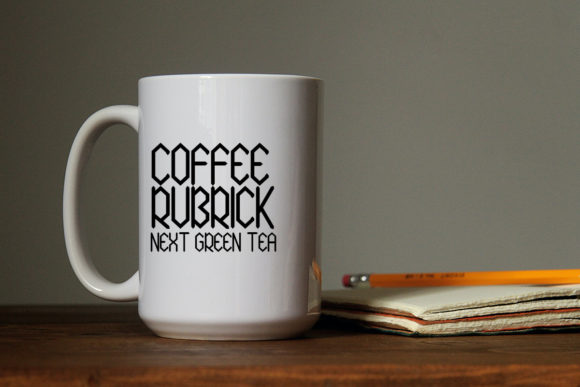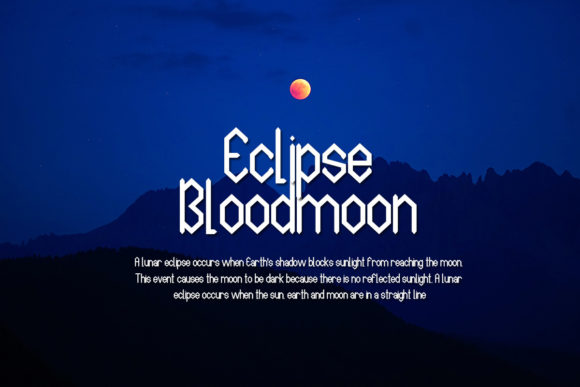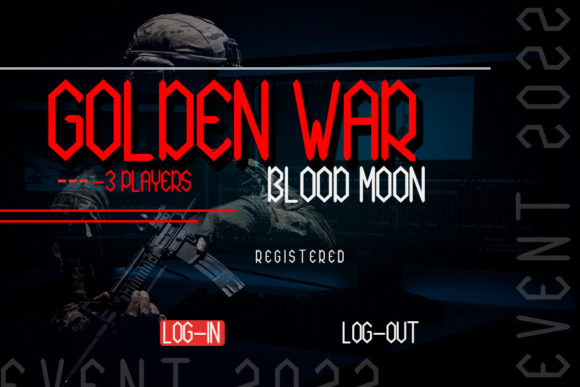
Introduction to Rangkeum Bangka Font
Remember that moment when you finally find the perfect design element for your creative project? It’s like a breath of fresh air, isn’t it? The Rangkeum Bangka Font is one of those game-changing discoveries that can elevate your designs to the next level. With its unique and bold shape, this display font is sure to make a statement in your magazines, social media posts, books, and other crafts.
As a designer, you understand the importance of having high-quality design resources at your fingertips. The Rangkeum Bangka Font is a valuable addition to any design library, offering a free download with a transparent background that makes it easy to integrate into your projects. Whether you’re working on a personal or professional project, this font is sure to provide the creative spark you need to take it to the next level.
Get ready to transform your designs with the Rangkeum Bangka Font. Its consistent edge and bold shape make it perfect for designers who want to add a touch of sophistication and elegance to their work. With its high-quality design and free download, this font is a must-have for any creative project.
Key Features of Rangkeum Bangka Font
- Rangkeum Bangka Font is a high-quality design resource ideal for creative projects, offering a unique and authentic aesthetic.
- Rangkeum Bangka Font features a transparent background, allowing for seamless integration with other design elements and a clean, minimalist look.
- This font is ideal for use in digital and print projects, including logos, branding materials, and marketing collateral.
- This design resource is perfect for designers and artists looking for a unique and eye-catching font to elevate their creative project.
Honest Review: Rangkeum Bangka Font
I recently stumbled upon the Rangkeum Bangka Font while searching for a unique design resource for a creative project. I must say, it’s been a game-changer! ✨
- High Quality: The font is crisp, clean, and well-designed, making it perfect for various applications.
- Transparent Background: The font’s transparent background makes it easy to place on any image or background, giving designers endless creative possibilities.
However, I do have a few minor complaints. ⚠️
- Limited Character Set: The font only includes a limited set of characters, which may not be ideal for designers working on projects that require a wider range of characters.
- Not Ideal for Small Text: While the font looks great in larger sizes, it can become blurry and difficult to read when used in smaller text sizes.
Overall, I’m really impressed with the Rangkeum Bangka Font. While it may have a few limitations, its high quality and unique design make it a valuable addition to any designer’s toolkit. I’d definitely recommend it for designers looking for a creative and stylish font for their next project.
The Rangkeum Bangka Font is a high-quality design resource perfect for creative projects. With a transparent background, this font can be easily integrated into various design tools.
Tips for Getting the Most Out of Rangkeum Bangka Font
To get the most out of the Rangkeum Bangka Font, try the following:
- Experiment with different font sizes and styles.
- Combine the font with other design elements to create a unique look.
- Use the font in conjunction with a transparent background to create a modern design.
The Rangkeum Bangka Font is perfect for:
- Branding and logo design.
- Business cards and brochures.
- Web design and development.